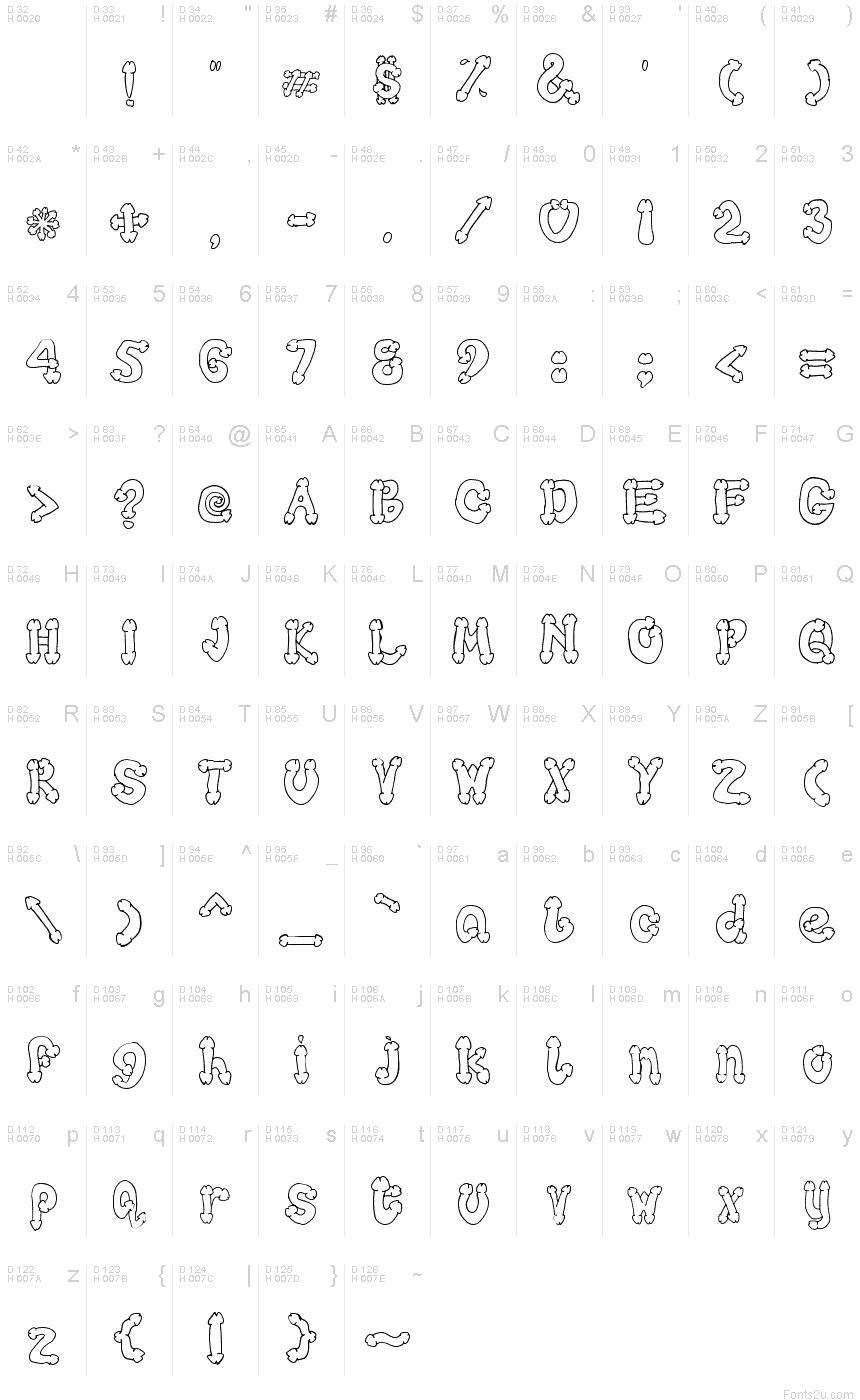
cocksure
Cocksure font by Les Rowe is a free cartoon display font. Its chunky outlines and inflated curves give every word a wobbly, hand-drawn swagger, while the rounded spur-like ends add a cheeky, offbeat twist that’s hard to ignore. It feels rubbery, loud, and slightly mischievous-the kind of lettering that turns a plain headline into part of the joke.
Using Cocksure works beautifully for comic titles, novelty posters, party flyers, sticker designs, cheeky merch, playful packaging, and bold social graphics. This free font reads best at larger sizes, where its quirky silhouette can really breathe; pair it with a plain sans-serif to keep the layout from getting too wild.